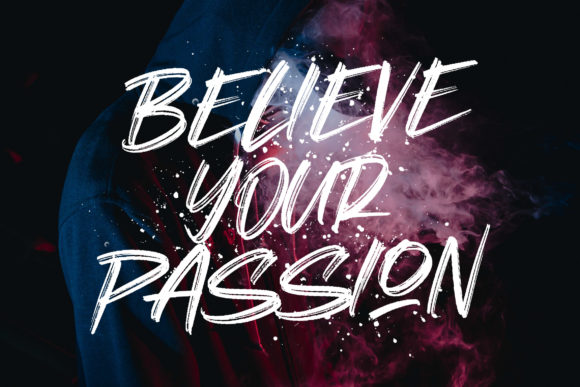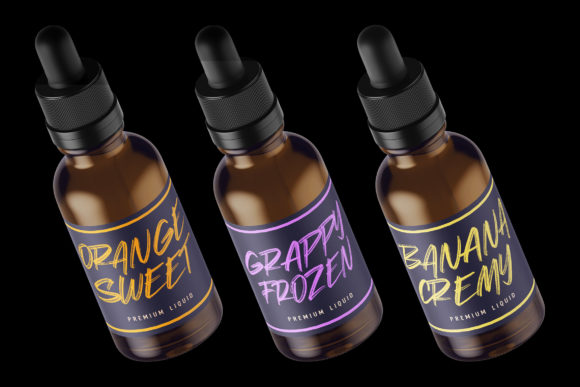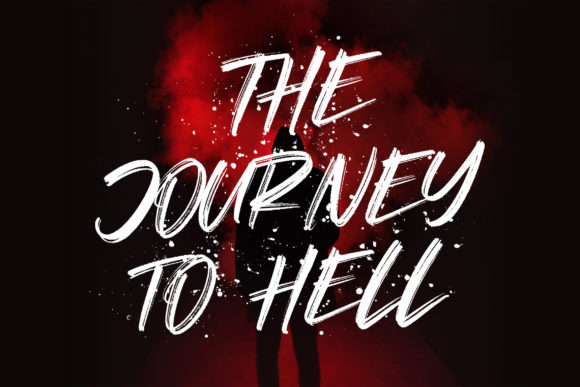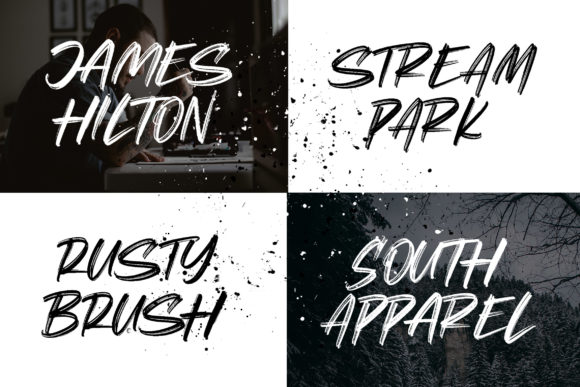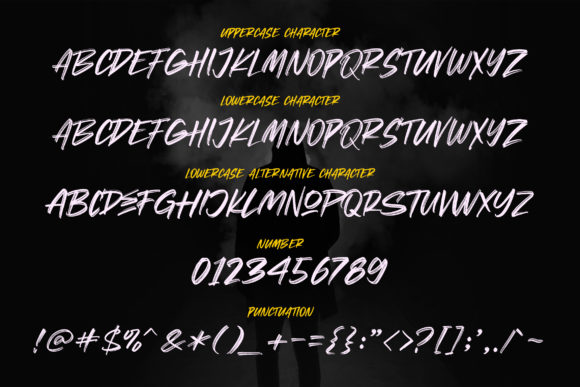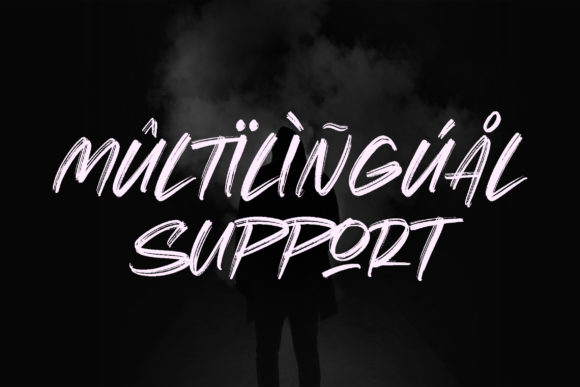
Introducing Break Herd Font: Unleash Your Creativity with this Bold Display Font
In the world of design, fonts play a crucial role in conveying messages and capturing attention. For designers and crafters looking for a fresh and exciting way to present their work, Break Herd Font is here to make a statement. This brand new display font is specifically designed for those who dare to be different and want to add a touch of boldness to their projects.
The Perfect Choice for Flashy Posters and Wacky Product Presentations
Break Herd Font is the perfect choice for creating eye-catching posters, wacky product presentations, and any other design project that requires a bold and attention-grabbing typography. Its unique and quirky style is sure to make your work stand out from the crowd and leave a lasting impression on your audience.
Key Features of Break Herd Font
- Unique and Quirky Style: Break Herd Font boasts a one-of-a-kind design that is sure to add a touch of personality to your projects.
- Bold and Attention-Grabbing: This display font is designed to make a statement and grab attention, making it perfect for posters, product presentations, and other designs where you want to make a bold impact.
- Highly Versatile: Break Herd Font can be used for a wide range of design projects, from posters and flyers to product packaging and branding.
- Easily Customizable: This font is easy to customize, allowing you to experiment with different colors, sizes, and styles to create a unique look that suits your project.
How to Use Break Herd Font in Your Design Projects
- Pair it with a Simple Background: Break Herd Font works best when paired with a simple background that allows the font to take center stage.
- Experiment with Colors: Try out different colors and gradients to add depth and interest to your design.
- Play with Size and Scale: Experiment with different font sizes and scales to create visual interest and hierarchy in your design.
Why Designers and Crafters Love Break Herd Font
Break Herd Font has quickly become a favorite among designers and crafters due to its unique style and versatility. Here are a few reasons why:
- It’s Fun and Playful: Break Herd Font adds a touch of playfulness and whimsy to any design project, making it perfect for designers and crafters who want to create fun and engaging work.
- It’s Highly Versatile: This font can be used for a wide range of design projects, from posters and flyers to product packaging and branding.